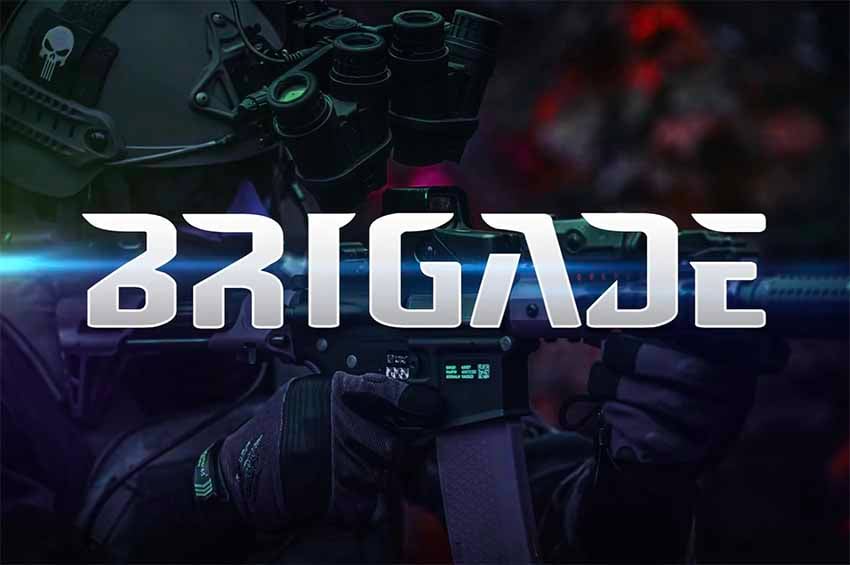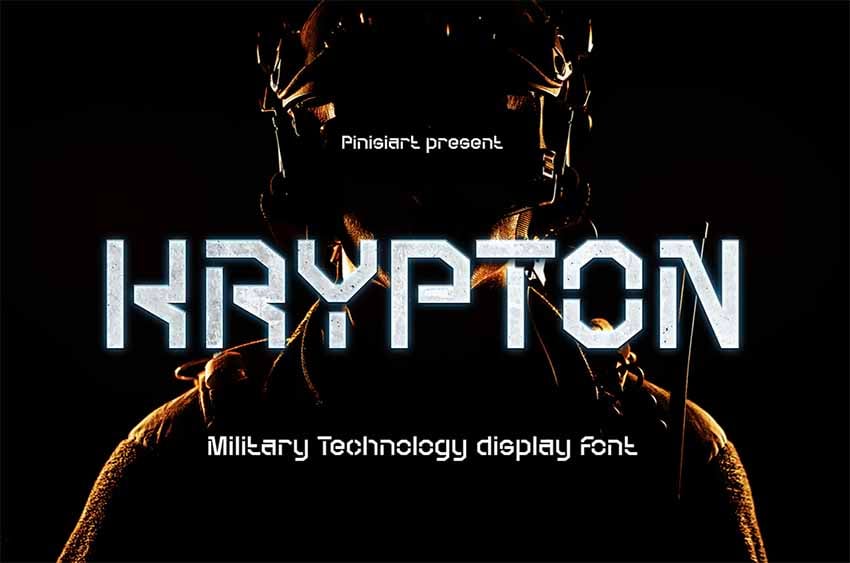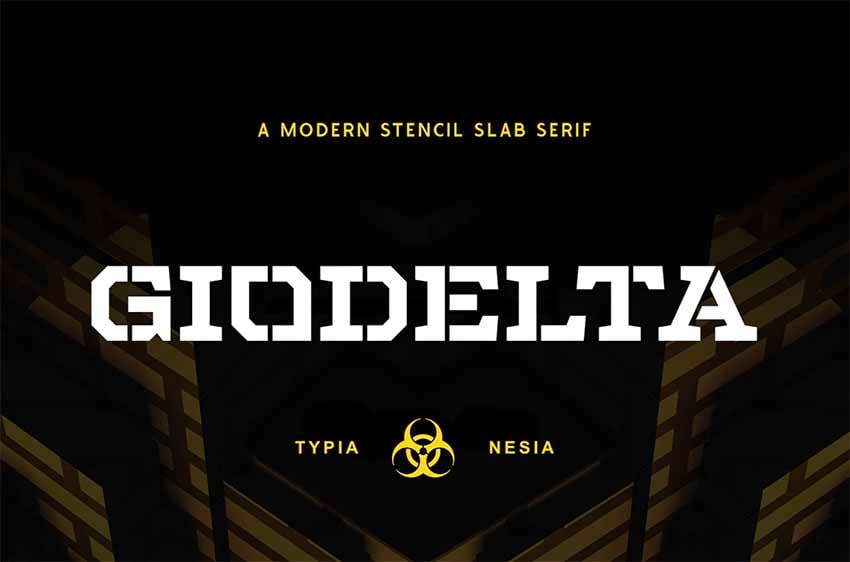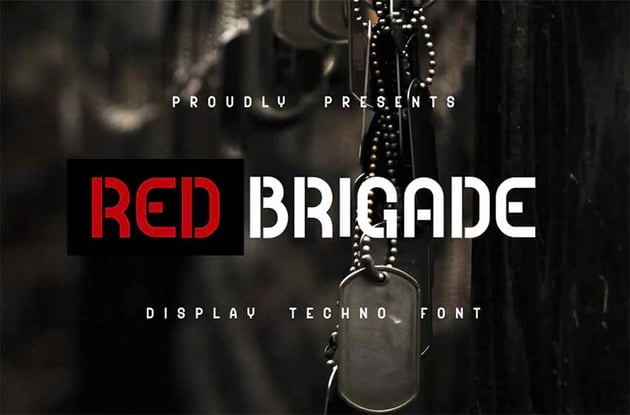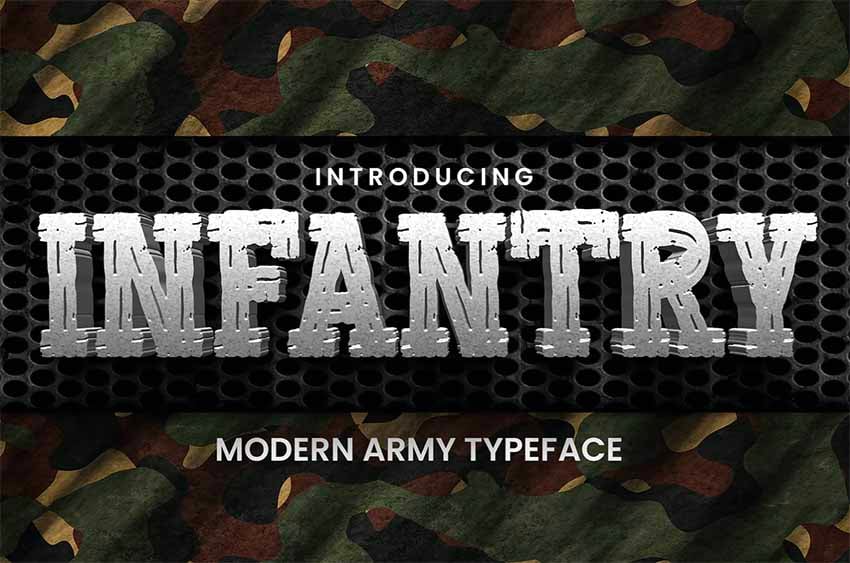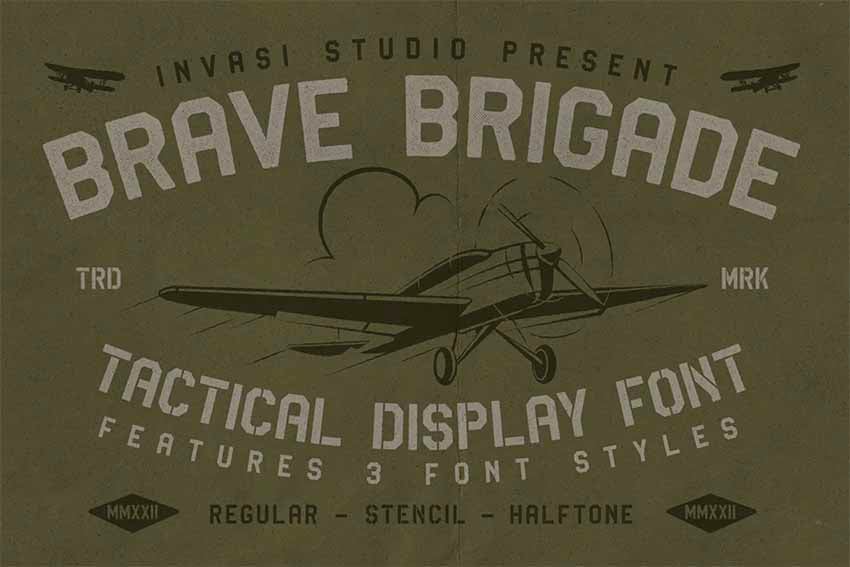
32 Best Military Fonts (Army Stencil Fonts)
32 Best Military Fonts
1. Airborne 86 Military Font (TTF, OTF)
Airborne 86 is a sans serif military style font that's offered in two styles: regular and military stencil fonts. The font contains uppercase letters, numbers, and punctuation. It's perfect for military stencils, posters, scrapbooking, invitations, cards, or any other project you can imagine.
2. Headcorps Military Serif Font (TTF, OTF)
Want to make military stencils? Use this impressive serif font, Headcorps, for your military-inspired projects. The font is offered in two styles: a regular font and a military stencil font. It would work extremely well for branding projects, posters, packaging, and more.
3. Michelangelo Vlone Font (TTF, OTF)
When you need a military font that offers a versatility of styles, Michelangelo Vlone Font is the right choice. The military lettering font offers 15 different styles, some modern and some with a retro touch.
4. Thunderbolt Marine Corps Font (TTF)
Thunderbolt Marine Corps Font is a military style font family with a bold and eye-catching style that's a great choice if you need an impressive display font. Inspired by the numbers used on the legendary Thunderbolt planes, this type offers four different stylistic variations, which will allow you to mix styles and weights when laying out your text.
5. Lordcorps Military Sans Font (TTF, OTF)
How about this commanding sans serif military font, Lordcorps? Can't you see it gracing the cover of a book on military exploits or creating a powerful album cover? Download this awesome military lettering font and start experimenting today.
6. Manufaktur Air Force Font (TTF, OTF, WOFF)
Influenced by an iron cast sign on an old Swedish industrial machine, Manufaktur Air Force Font offers four great military style fonts for signs, billboards, posters, and other large-scale projects. These four army letter font styles—light, black, condensed, and expanded— use simple curves and strong, sturdy strokes to give the font styles weight and gravity.
7. Freich Vlone Font (TTF, OTF)
This vintage styled font is another terrific choice for those looking for old military font styles to create bold text for signs, posters, and more. The font contains well over 300 glyphs, so you can have a lot of fun giving your text a unique look.
8. LUNA (TTF)
How awesome is this slab serif military style font? An excellent choice for a wide variety of projects, Luna features solid, elongated capitals for extra impact. The font is offered in a regular and a stylish version.
9. Stencil Autobahn (SVG)
Just because we love military fonts and military stencils, it doesn't mean we love war, so we're all for using your military stencil fonts to design awesome text like the one above. Created with real stencils, Autobahn captures the style of a US army military font combined with the texture and attitude of real spray paint.
10. Legacy Vintage Style Font (TTF, OTF)
A cross between military lettering fonts and American college block fonts, Legacy is a unique vintage-inspired font that comes in ten wonderful styles. Mix and match them to create your own unique look for posters, T-shirts, branding, signage, and more.
11. Asgard Urban Stencil Font (TTF, OTF)
Here's a very modern take on a military name-tag font. An excellent choice for projects from branding to magazine covers to posters, Asgard contains uppercase characters, numbers, and punctuation. Download this bold military stencil font to give it a whirl.
12. Stampline Stencil Typeface (TTF, OTF)
Give this variation of an army stencil font a try. Subtly distressed with elongated capitals, Stampling is ideally suited to creating logos, branding materials, signage, posters, and more. The font contains uppercase and lowercase Latin characters, numbers, and punctuation.
13. Loccomotive Stencil Font (TTF, OTF)
Another variation on a military name-tag font, Loccomotive is a great choice if you're looking for a vintage military font with rounded edges. Use the type to create T-shirts, posters, business cards, logos, branding materials, etc.
14. Ember Military Stencils (TTF, OTF)
Ember is a US army font with strength and character. The font, which contains uppercase letters, numbers, and punctuation, is offered in two styles. Use either of them or a combination of both to create bold, attention-getting text.
15. Braunstein Army Font (TTF, OTF)
This military stencil font is confident and commanding. Use it for those special projects when only the most distinct font will do.
16. Opera (OTF)
Opera contains a collection of ten riveting fonts, each one capable of making its own bold statement or working together to create powerful text. Whether you are creating your first or 50th business card, logo, greeting card, or poster, Opera will complement your bold design with equally attention-getting text.